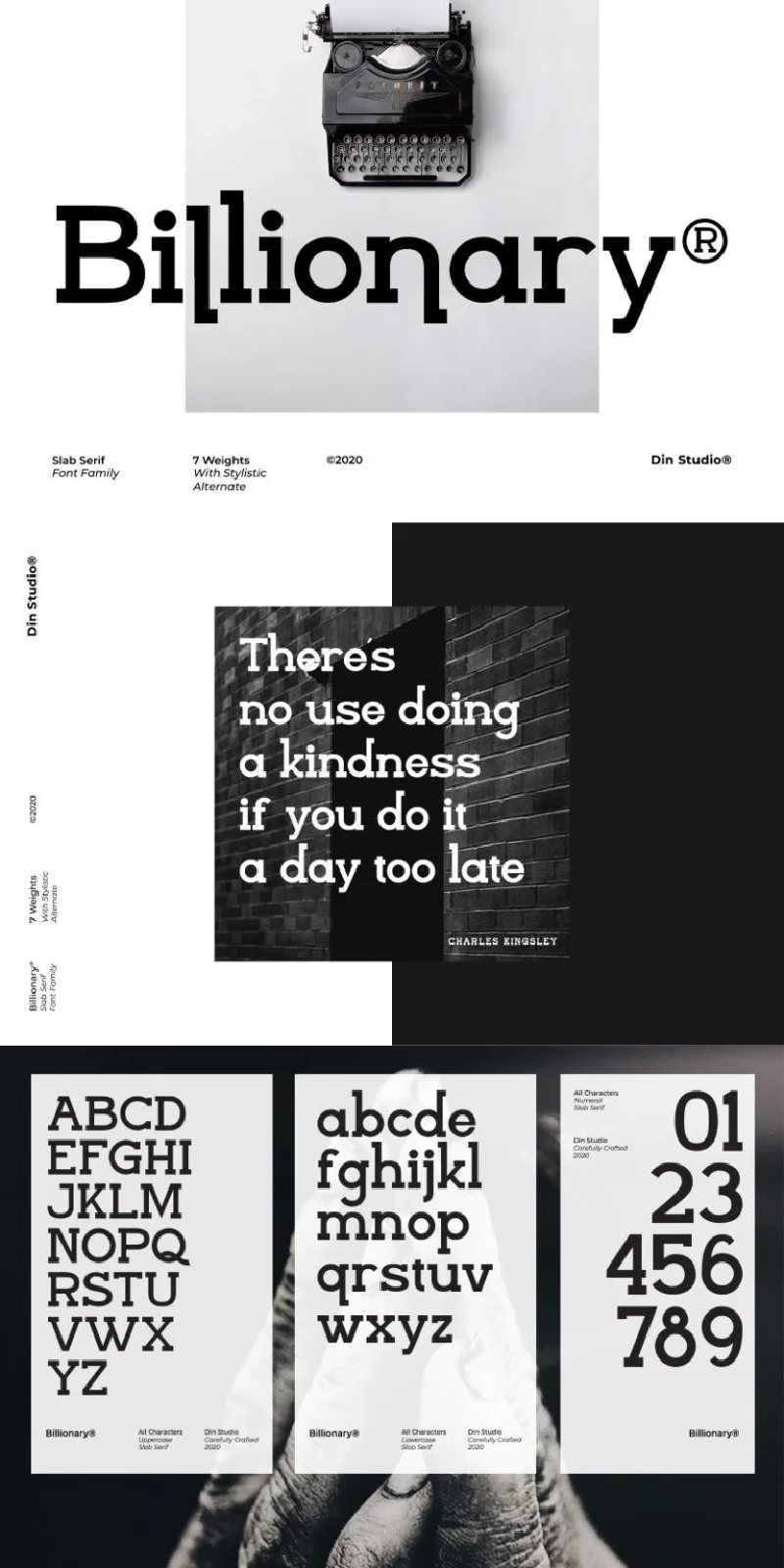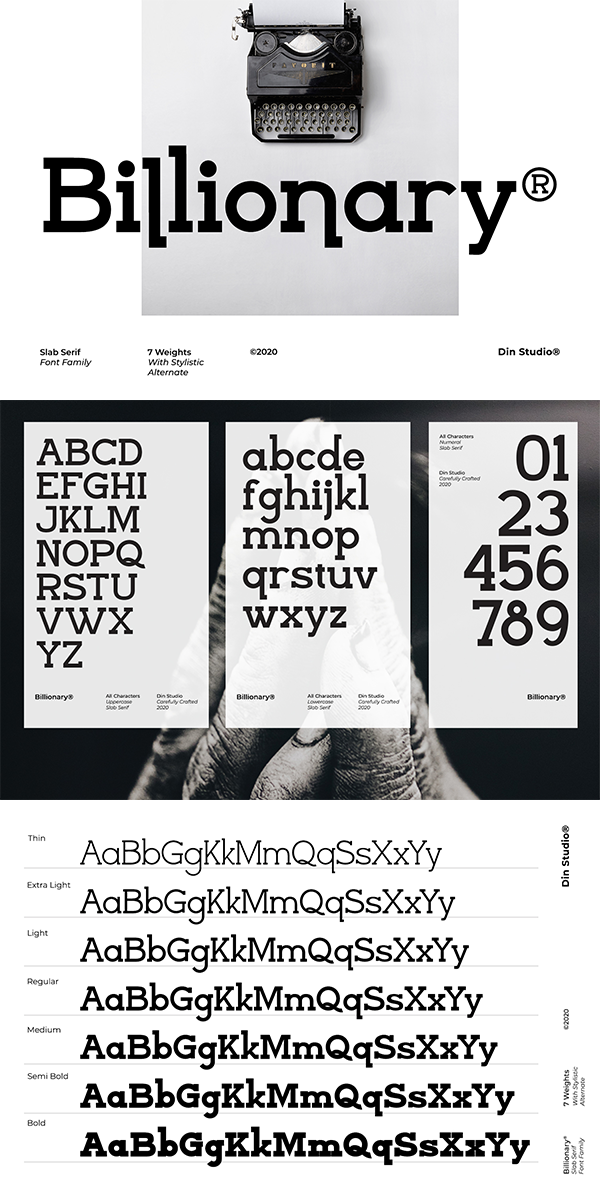
Billionary Font
About Billionary
Introducing Billionary – A Slab Serif Font Family
A package that will delight you. With this family you will get many options to captivate, engage, and inspire your audience and clients. This fonts can be used for a host of different content needs and projects. Designed by Din Studio. Perfect for social media branding projects, fashion designs, printed quotes, packaging, or even as a stylish text overlay to any background image.
Inspire your audience, clients, or guests with this beautiful, statement font. See the previews above to get some inspiration on how you can use them.
-Billionary Thin
-Billionary Extra Light
-Billionary Light
-Billionary Regular
-Billionary Medium
-Billionary Semi Bold
-Billionary Bold